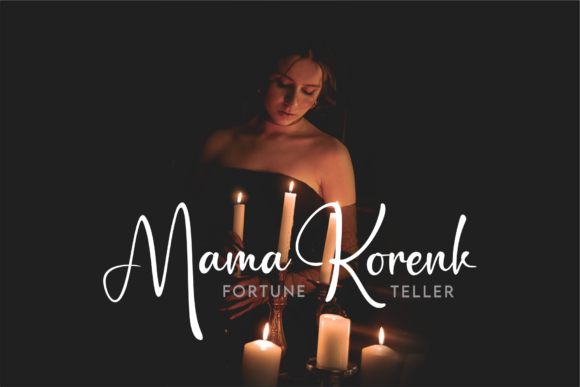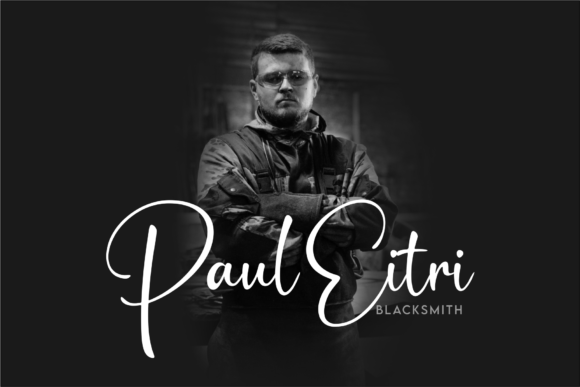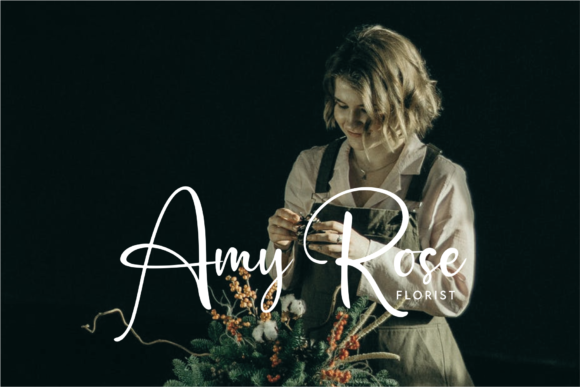
The Elegance of Fionetta Font: A Designer’s Delight
I still remember the time I was working on a wedding invitation project, and my client asked for a font that exuded elegance and sophistication. I scoured the internet, tried out countless fonts, but nothing seemed to fit the bill. That was until I stumbled upon Fionetta Font. Its thin lettered and graceful script style instantly caught my attention, and I knew I had found the perfect fit. In this article, I’ll share my experience with Fionetta Font, its features, and how to make the most of it in your designs.
An Honest Review of Fionetta Font
What I Love About Fionetta Font
- ✨ Exquisite style: Fionetta Font boasts a ravishing style that adds a touch of elegance to any design project.
- ✅ Versatility: Its thin lettered and graceful script style makes it perfect for a wide range of design projects, from wedding invitations to social media posts.
- 💫 Readability: Despite its delicate nature, Fionetta Font remains highly readable, even at smaller font sizes.
While Fionetta Font is a stunning addition to any design project, there are a few things to keep in mind:
- 🤔 Limited use in body text: Due to its delicate nature, Fionetta Font may not be the best choice for lengthy body text. It’s better suited for headings, titles, or short paragraphs.
- ⚠️ Kerning issues: As with any script font, kerning can be a bit tricky. Make sure to adjust the kerning to ensure optimal readability.
The Backstory of Fionetta Font
Fionetta Font was designed by a team of typographers who wanted to create a font that embodied elegance and sophistication. Inspired by classic calligraphy, Fionetta Font features delicate lines, flowing curves, and a touch of whimsy. The font’s name, Fionetta, is derived from the Gaelic word for “fair-haired,” which reflects the font’s light and airy feel.
Q: What is Fionetta Font best used for?
A: Fionetta Font is best used for designs that require elegance and sophistication, such as wedding invitations, stationery, social media graphics, and more.
Q: Is Fionetta Font difficult to read?
A: No, Fionetta Font is highly readable, even at smaller font sizes. However, it’s best used for headings, titles, or short paragraphs rather than lengthy body text.